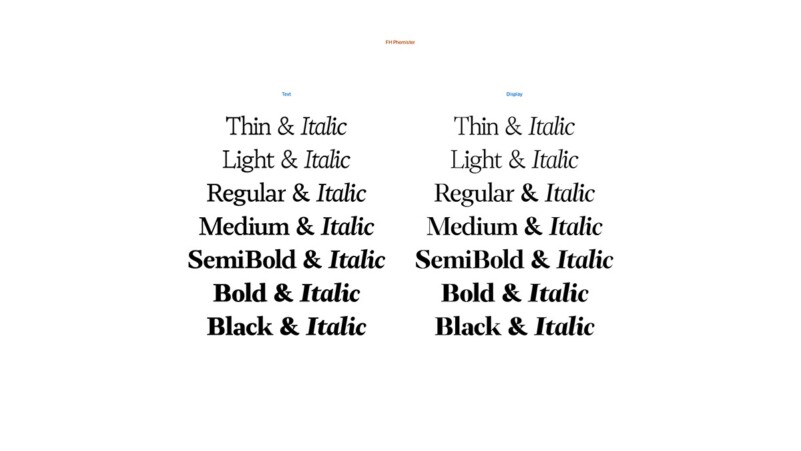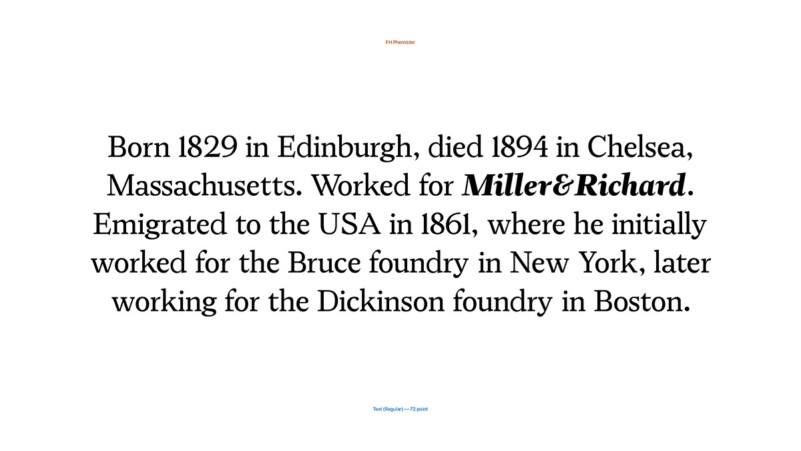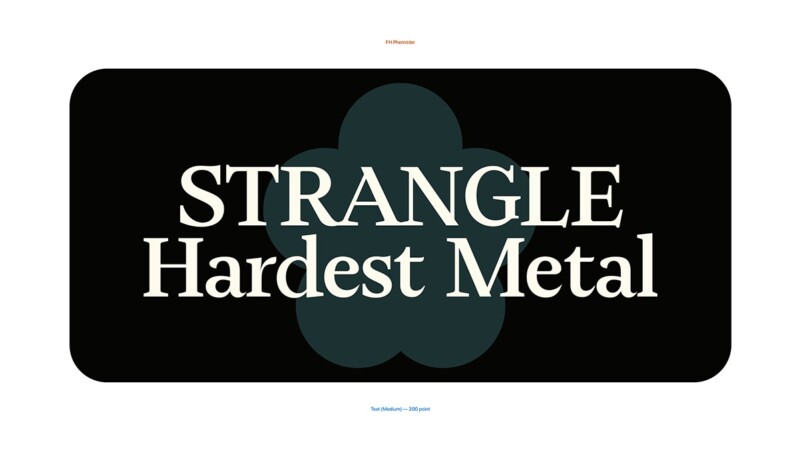
FH Phemister Font Family
FH Phemister Font is a classy, classic serif font family that exudes an air of fine art and high-end creativity. Inspired by Phemister Old Style. In the 1850s, a series of historically themed books was published by the Chiswick Press, set in the revival of Caslon’s old-style types. These editions came together with a notable success, hastening a general alienation from the skinny modern genres prevalent in book studies at the time and a return to the friendlier styles of earlier days, reshaped to comfortably suit the tastes of contemporary readers.